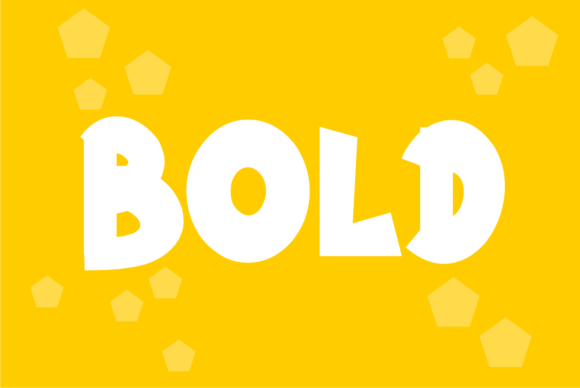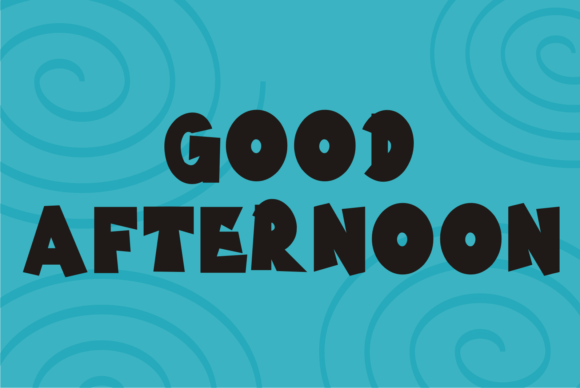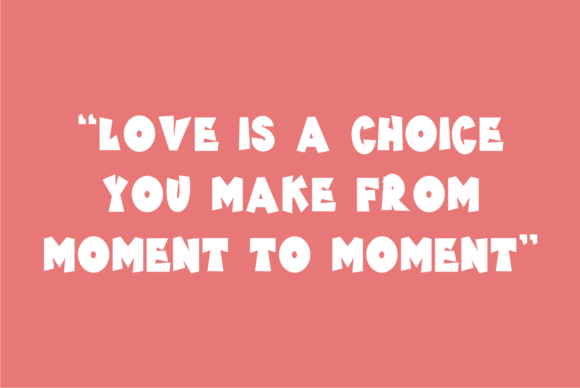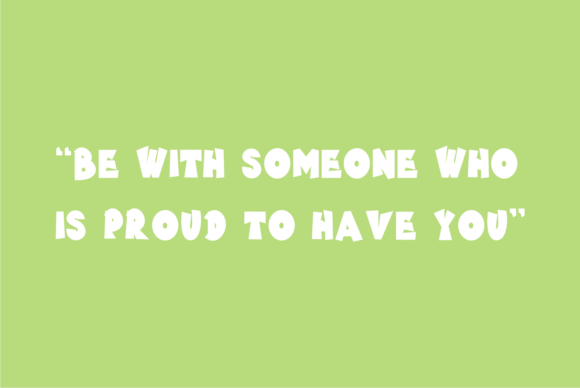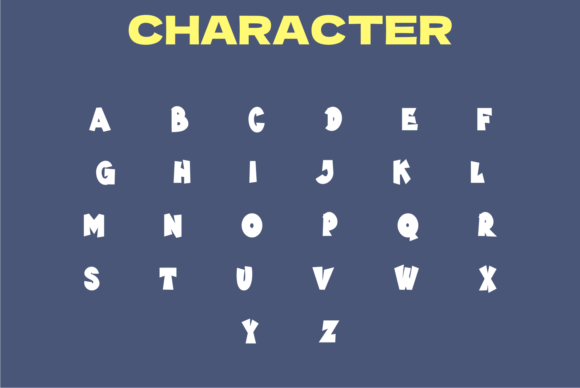
Introduction to Dumba Font
Dumba is a thick-lettered and cool display font.
Simple but with a strong visual effect, this font will instantly make your creations more appealing than any others .
Key Features of Dumba Font
Why Choose Dumba Font?
Dumba Font offers exceptional quality and versatility, making it a valuable addition to your design toolkit. Whether you’re creating for personal projects or commercial use, Dumba Font delivers professional results.